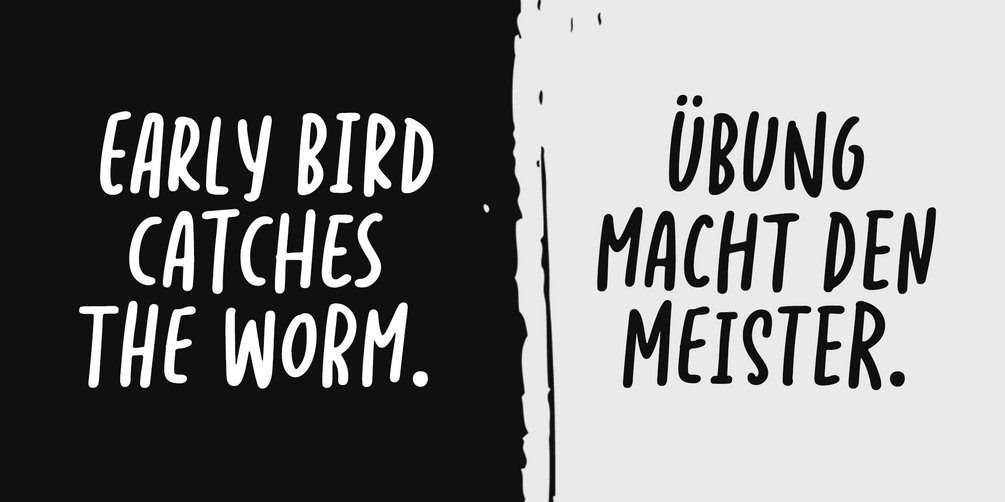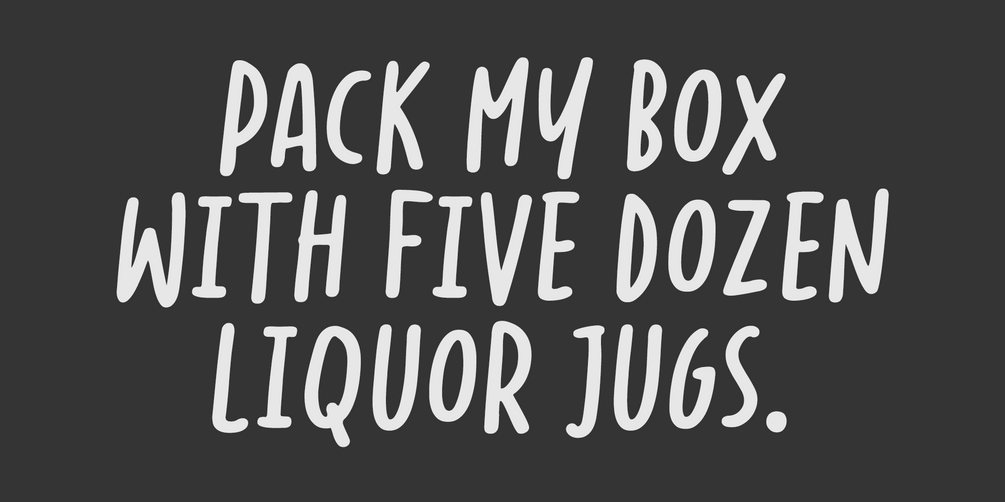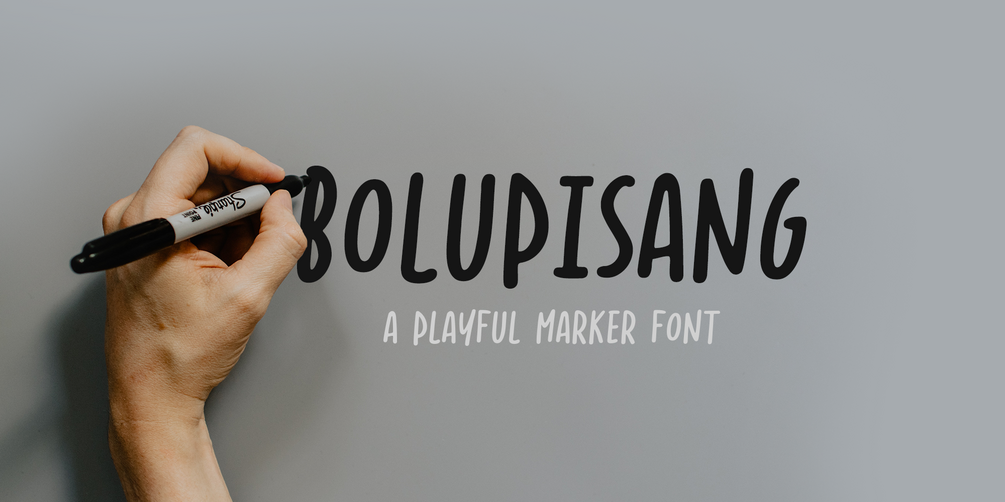
Bolupisang
Bolupisang is a charming handwritten font inspired by playful marker style. What sets Bolupisang apart is its delightful versatility. Each letter offers six distinct alternatives that seamlessly transition as you type, injecting a dynamic and spontaneous feel into your designs.
Bolupisang is your go-to font for all things fun and creative. Whether you're crafting designs for children, adding a touch of whimsy to comics, creating eye-catching posters, or sharing inspiring quotes, Bolupisang effortlessly adapts to your needs. Its organic and ever-changing appearance will infuse your work with a playful spirit, making your designs truly unique.